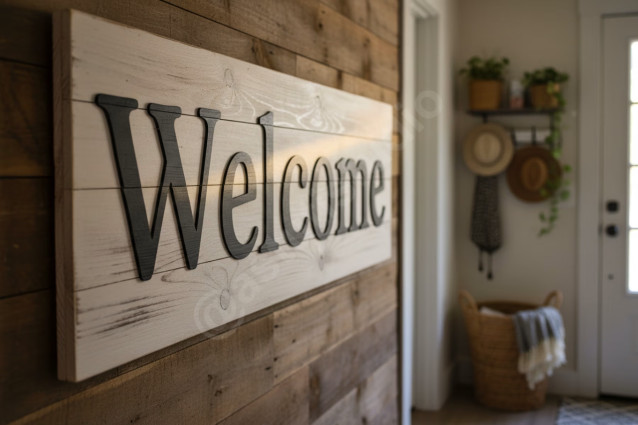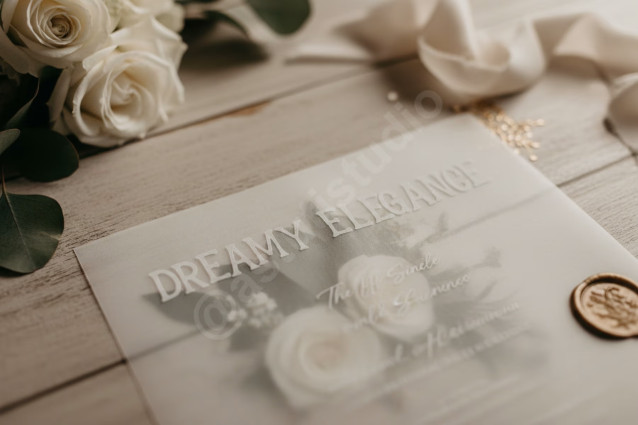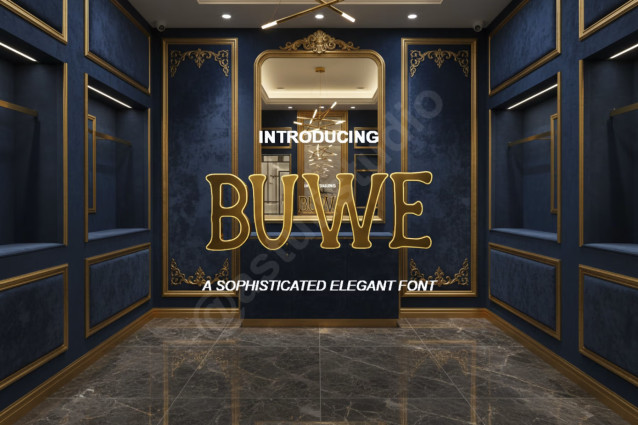
Buwe – Elegant Display Serif Font
Introducing Buwe, a meticulously crafted display serif typeface designed for discerning professionals. Buwe embodies timeless elegance fused with contemporary clarity, making it the essential cornerstone for high-end visual communication. Its luxurious proportions and sharp, defined details ensure immediate sophistication across any medium.
- Comprehensive set of uppercase and lowercase characters
- Numbers and essential punctuation
- Multilingual support for global reach
Optimized Use Cases
- Branding and Identity: Create memorable, luxury logos and corporate identities.
- Editorial Design: Ideal for sleek magazine headers and readable body text.
- Wedding Stationery: Adds a contemporary and polished touch to modern invitations.
- Social Media: Perfect for creating eye-catching quotes and professional graphics.
- Product Packaging: Enhances minimalist and high-end product presentation.